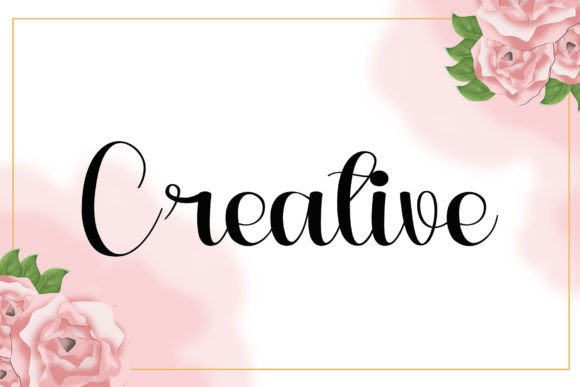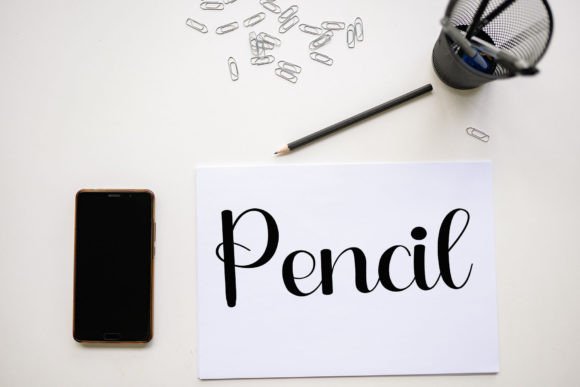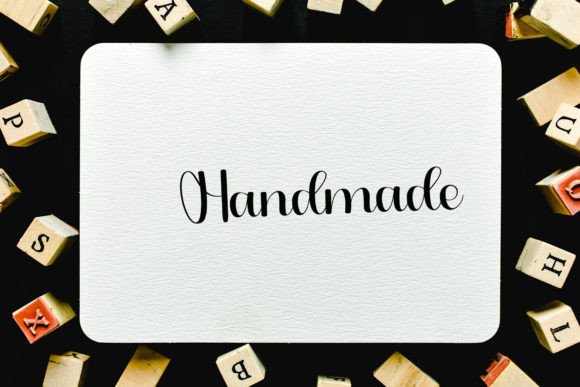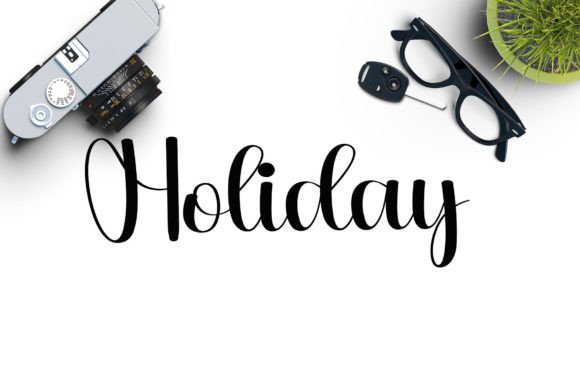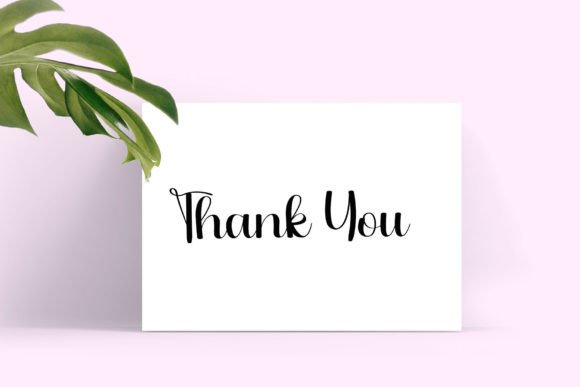
Discover the Timeless Elegance of Alpha Font
Have you ever stumbled upon a design that left you breathless, wondering how the creator managed to capture the perfect blend of style and sophistication? For me, that moment came when I saw a beautifully crafted logo, written in a handwriting font that exuded elegance and refinement. The moment I saw it, I knew I had to learn more about the font behind it.
Enter the Alpha Font – a stunning, handwritten font that adds a touch of sophistication to any design. With its unique, timeless style, Alpha Font is the perfect choice for designers looking to create spectacular designs that leave a lasting impression. Whether you’re working on a logo, a brochure, or a social media campaign, Alpha Font is sure to elevate your work to the next level.
What sets Alpha Font apart is its versatility and elegance, making it a valuable addition to any designer’s toolkit. With its incredibly distinct style, Alpha Font is sure to become a favorite among designers who crave a unique look that stands out from the crowd.
Key Features of Alpha Font
- Unique Character Set: Alpha Font features a comprehensive character set, including a wide range of languages and scripts, making it an ideal choice for multilingual applications.
- Advanced Typography: Alpha Font includes advanced typographic features, such as ligatures, swashes, and ornaments, allowing designers to add a touch of elegance and sophistication to their work.
- Font Weight and Style Options: Alpha Font is available in multiple font weights (light, regular, bold, and black) and styles (italic and oblique), providing designers with a range of options to suit their specific needs.
Alpha Font Review
Overall, I’d say Alpha Font is an interesting choice for designers, but it’s not without its quirks. Let’s dive in and see what works well and what doesn’t.
- Unique character set: Alpha Font has a distinct style that sets it apart from more common fonts. It’s perfect for designers who want to add some personality to their work.
- High contrast: The bold lines and contrasting colors make Alpha Font easy to read, even at small sizes.
- Wide range of uses: Alpha Font can be used for headings, body text, and even for decorative purposes.
- Limited legibility at small sizes: While Alpha Font is readable, it can become difficult to decipher at very small sizes.
- Not ideal for body text: Due to its bold lines and contrasting colors, Alpha Font can be overwhelming for large blocks of text.
- May not be accessible for all users: The unique character set and high contrast may not be suitable for users with visual impairments or other accessibility needs.
In conclusion, Alpha Font is a solid choice for designers who want to add some flair to their work. However, it’s essential to consider the limitations and potential accessibility issues before using it in a project.
Getting the Most Out of Alpha Font
To get the most out of Alpha Font, consider the following tips:
- Use Alpha Font for headings and titles to create a bold and modern look.
- Pair Alpha Font with a sans-serif font for body text to create a clean and readable design.
Alpha Font is commonly used in:
- Marketing materials and advertising
- Geometric shapes: Use shapes like triangles, circles, and squares to create a visually appealing composition.
- Abstract patterns: Add an abstract pattern in the background to create contrast and add visual interest.
- Minimalist icons: Use simple icons to add a touch of whimsy and personality to the design.
- Urban textures: Use urban textures like brick, concrete, or asphalt to add a gritty, urban feel to the design.
Combining Alpha Font with other design elements, such as:
Project 2: Alpha Font Graffiti
This project involves using Alpha Font to create a graffiti-style piece that adds a touch of urban flair to any room. The bold lines and minimalist aesthetic of Alpha Font make it an ideal choice for this type of project.
To use Alpha Font in this project, create a bold and colorful design using a combination of letters and symbols. Experiment with different colors and layering to create depth and interest.
Combining Alpha Font with other design elements, such as: